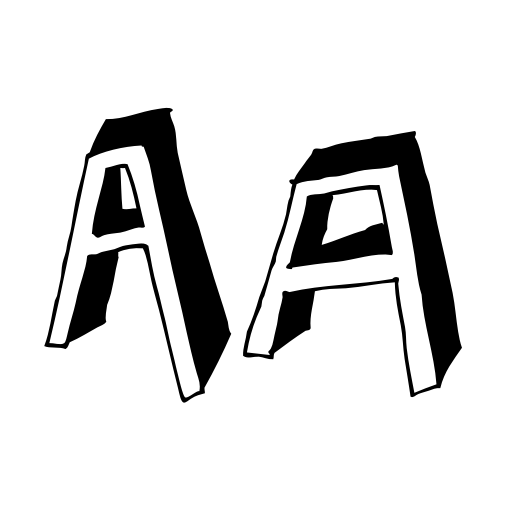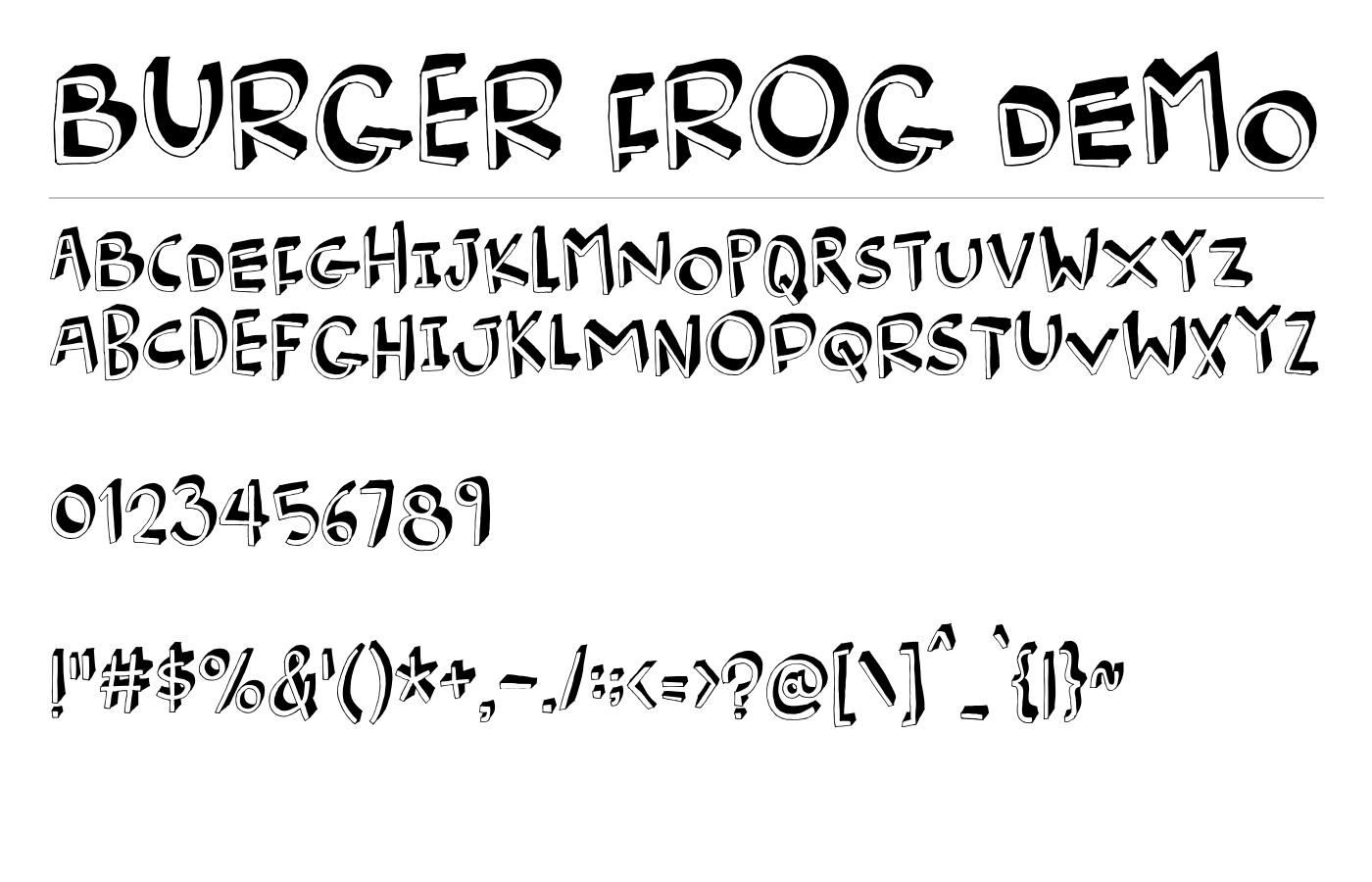
Burger Frog DEMO is a playful, hand-drawn sans serif font with an energetic and quirky personality. Its irregular strokes and uneven shapes give it a casual, fun feeling, making it perfect for creative, informal designs like children's books, cartoons, or playful branding. This font works well for headlines, logos, and posters where a lively, approachable style is desired.
Burger Frog DEMO Font
About Burger Frog DEMO Font